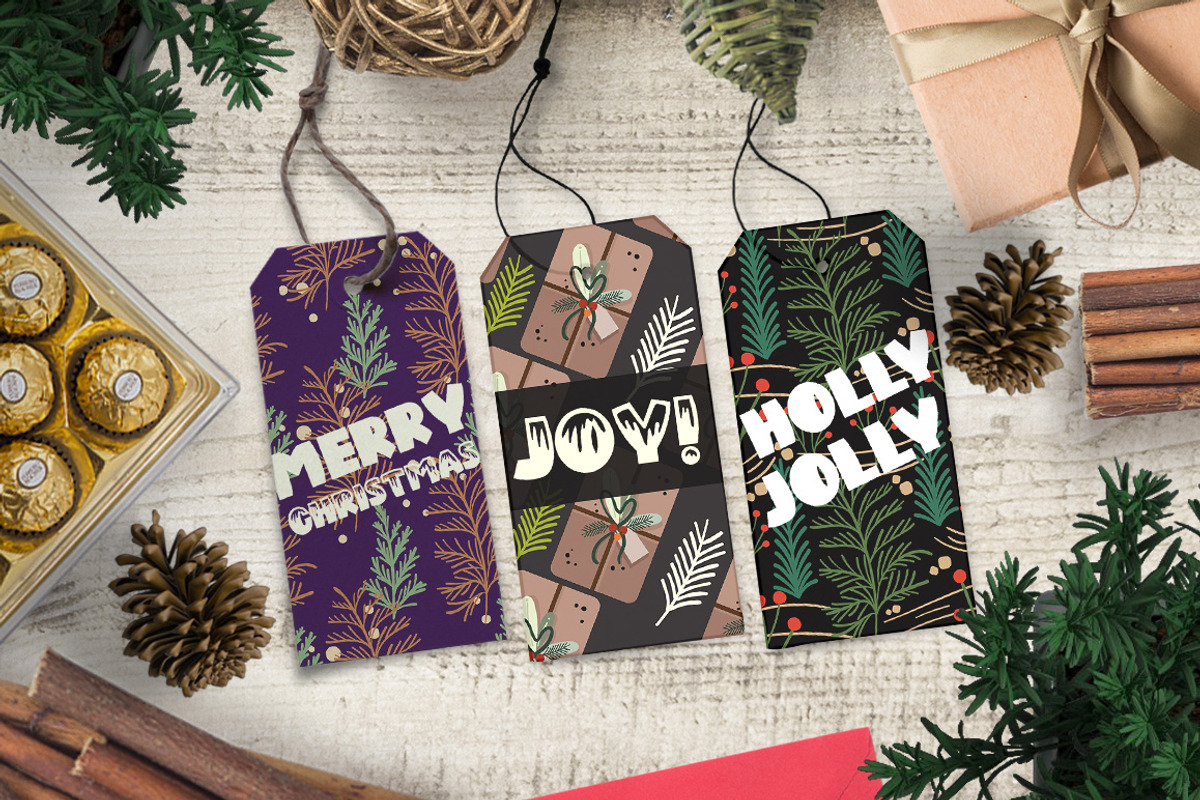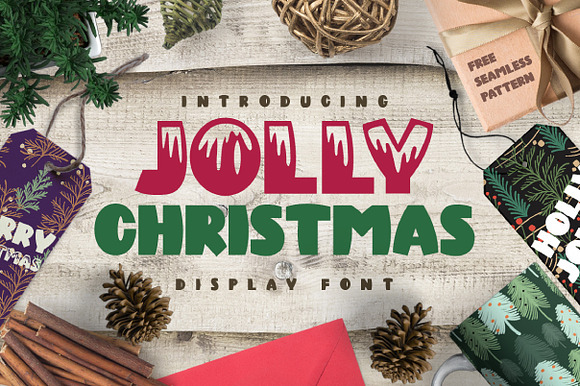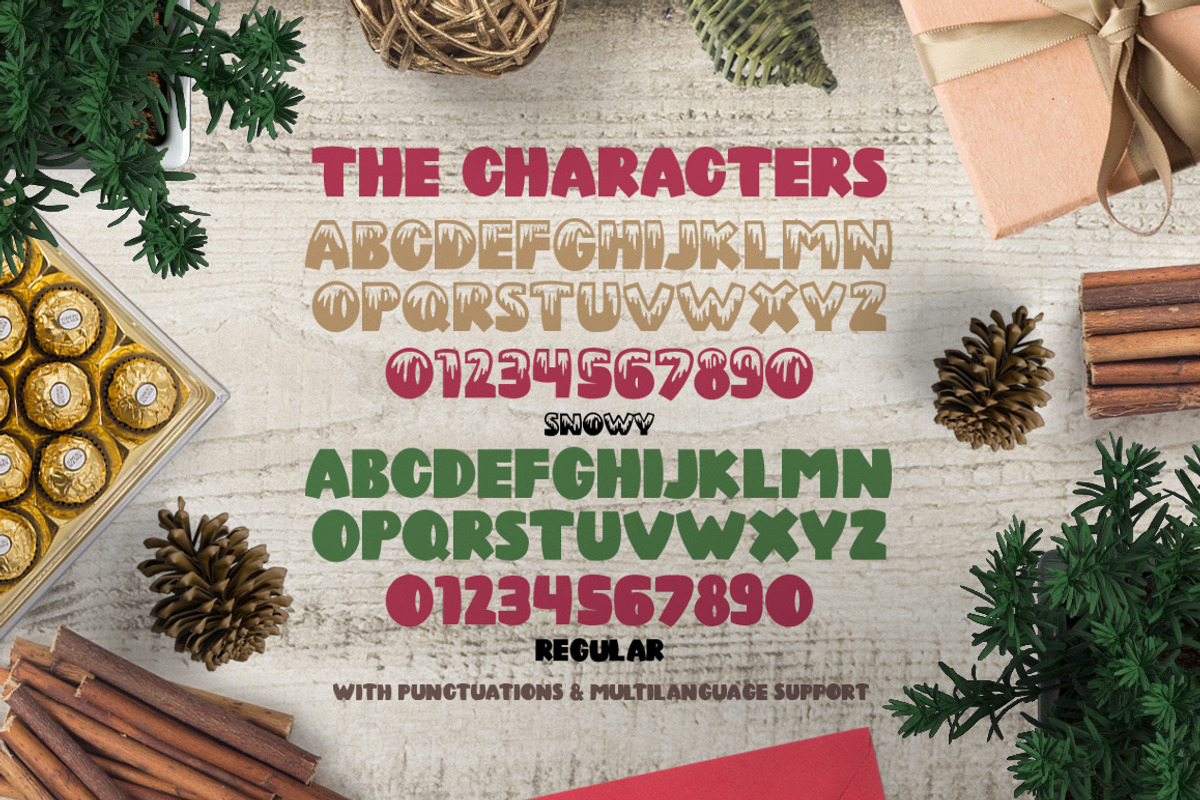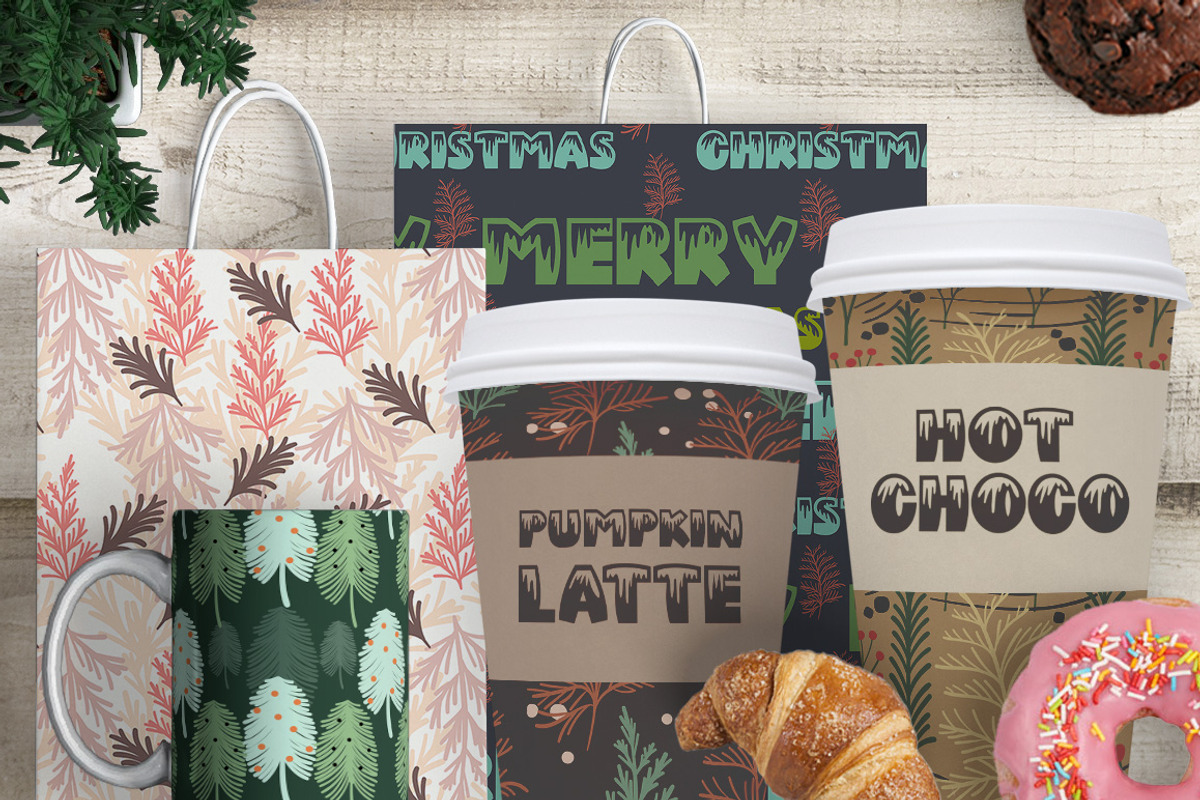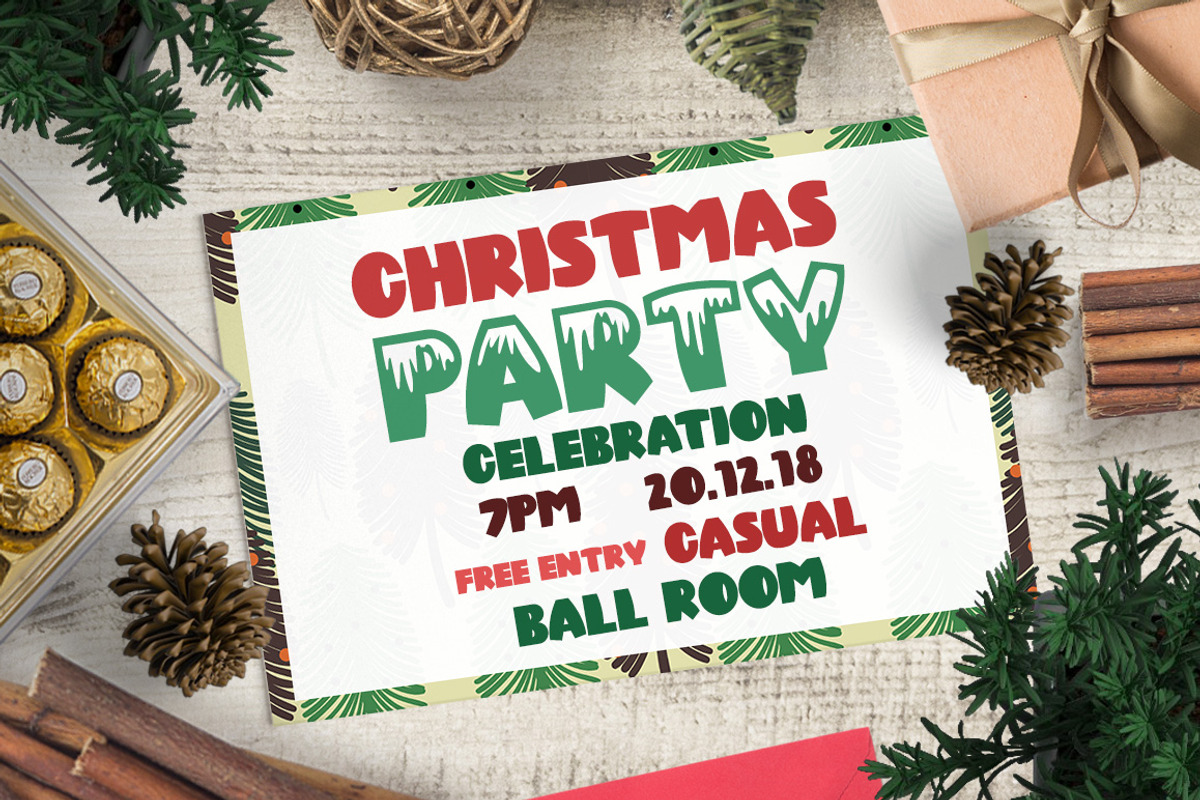
Jolly Christmas Font
Christmas is coming soon! Jolly Christmas is a bold decorative font perfect for this christmas!
- Jolly Christmas Regular
- Jolly Christmas Snowy Regular